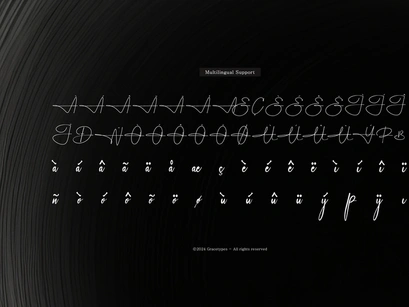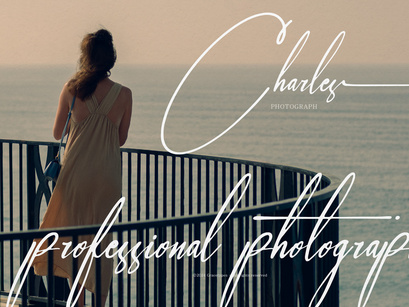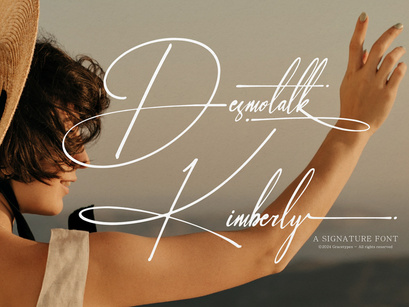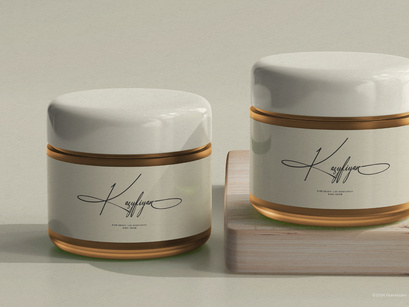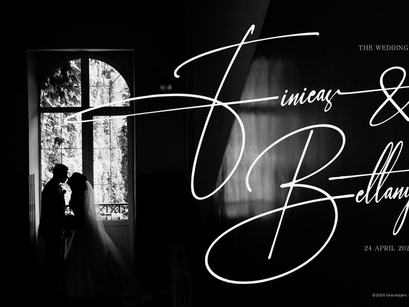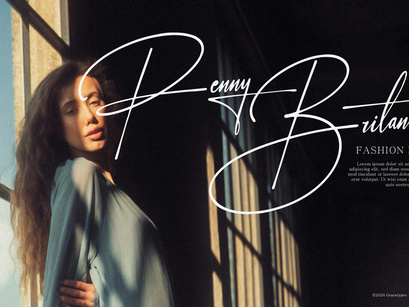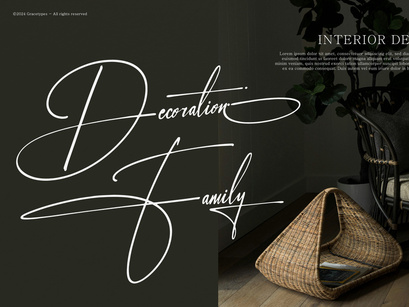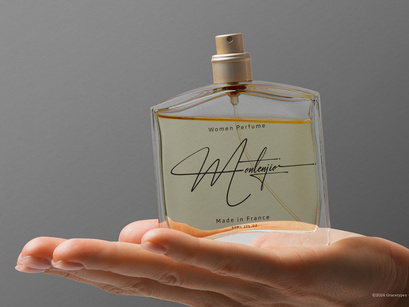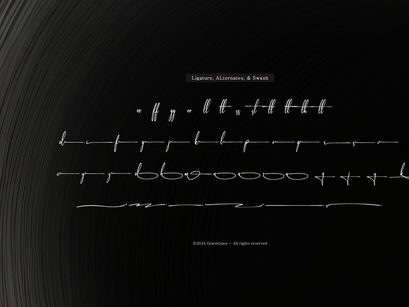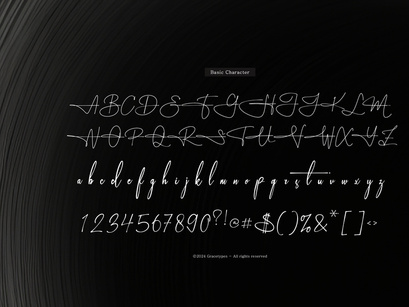
Desmotalk Kimberly | Signature FontPremium
Desmotalk Kimberly | Signature Font
Desmotalk Kimberly
Desmotalk Kimberly Italic
Desmotalk Kimberly
Desmotalk Kimberly | Signature Font, from Gracetypestudio, suitable for any projects such as: logos, branding projects, homeware designs, product packaging, mugs, quotes, posters, shopping bags, t-shirts, book covers, name card, invitation cards, greeting cards, label, photography, watermark, special events, and all your other lovely projects that need a Signature Font taste.